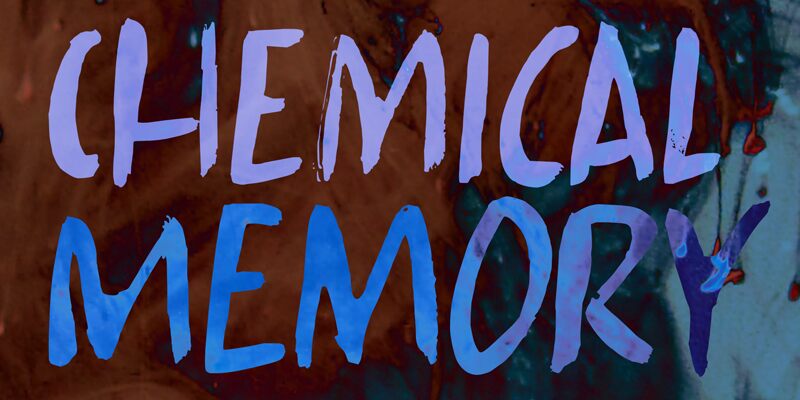
Chemical Memory DEMO Regular
Chemical Memory font, designed by David Kerkhoff of Kitchen Table Type Foundry, captures a vivid essence of creativity and spontaneity through its expressive brush style. This typeface boasts bold, sweeping strokes that convey a sense of movement and energy, making it visually striking. The slightly irregular forms add an organic feel, reminiscent of handwritten notes or artistic endeavors.
Its unique character makes Chemical Memory ideal for artistic projects, branding that seeks to evoke emotional connection, or expressive headings in layouts. Whether used for product packaging or event posters, this font enhances designs with its captivating flair while remaining legible. With its vibrant personality, Chemical Memory stands out as a perfect choice for creative applications seeking to leave a lasting impression.